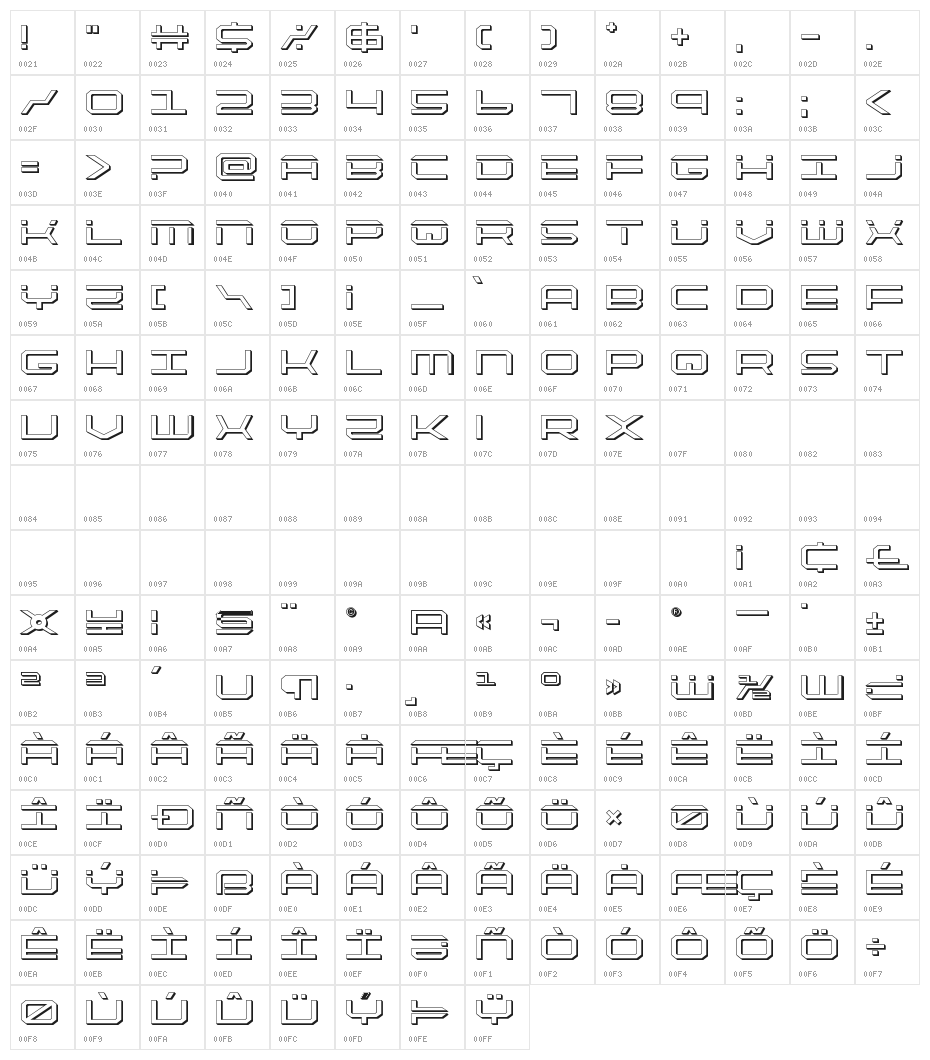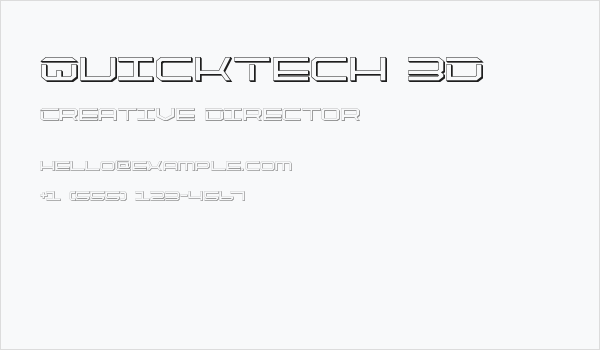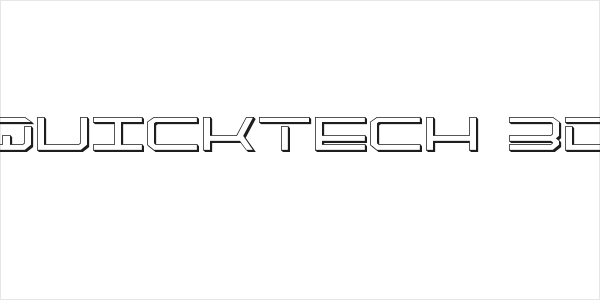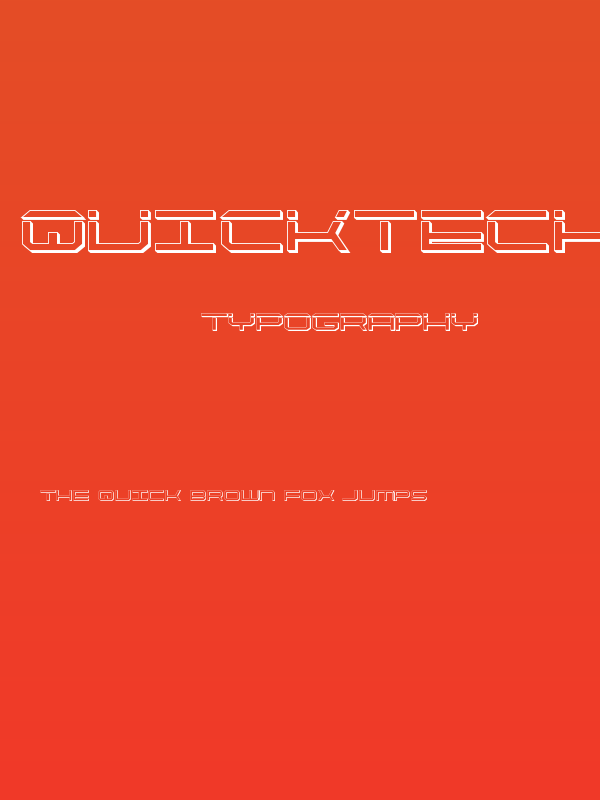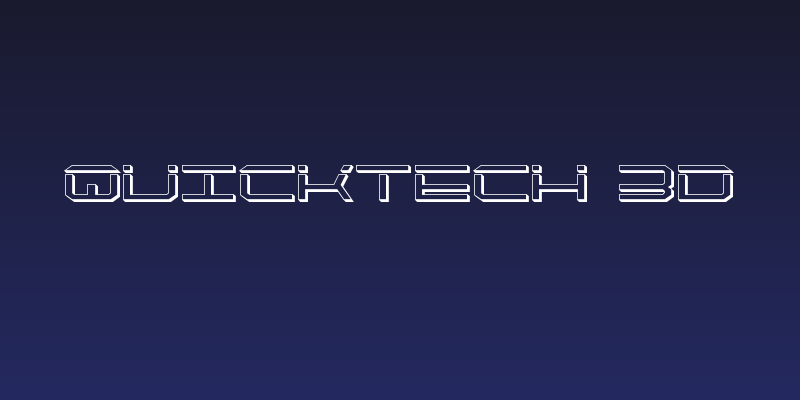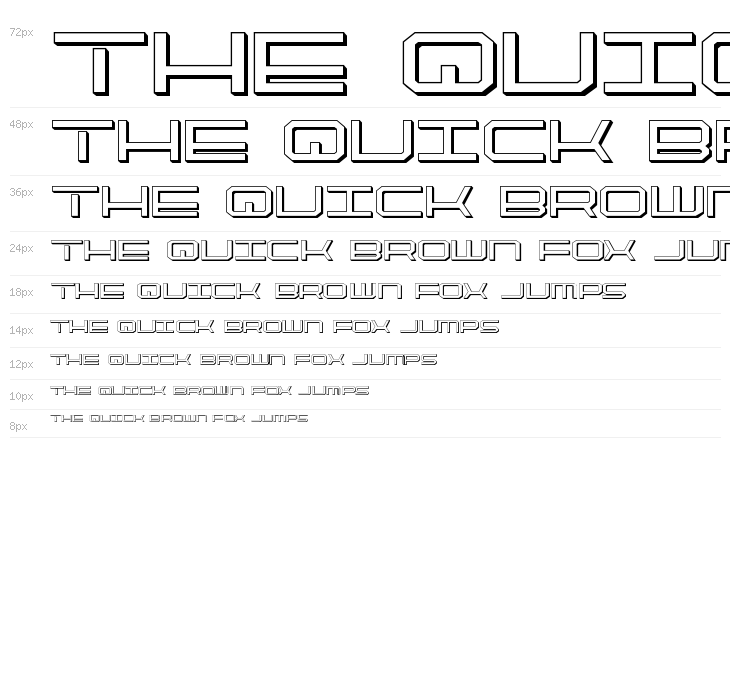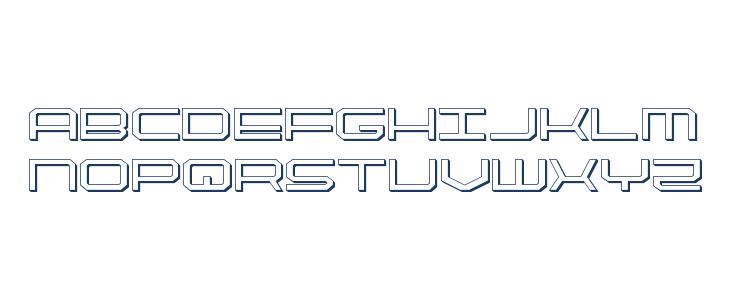
QuickTech 3D Font
QuickTech 3D Description
This font features a futuristic, geometric design with a three-dimensional effect. The characters are outlined, creating a hollow appearance that adds depth and dimension. Each letter and number is constructed with sharp angles and straight lines, giving it a technical and modern look. The uppercase and lowercase letters maintain a consistent style, while the numerals and special characters complement the overall aesthetic. The font's unique structure makes it stand out, ideal for projects that require a bold and innovative visual impact.
Overall StyleModern
Use CaseHeadlines, Logos
Proposed ProjectsIdeal for technology-themed designs, video game titles, sci-fi movie posters, and modern branding projects.